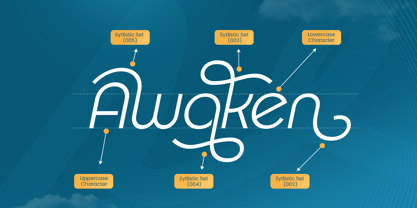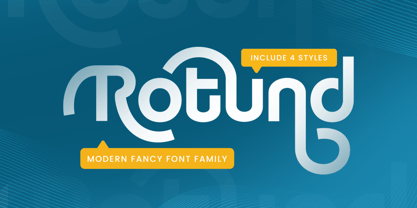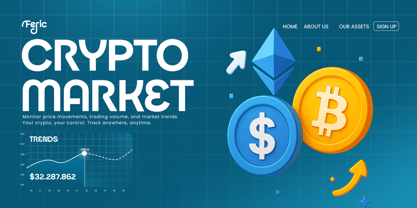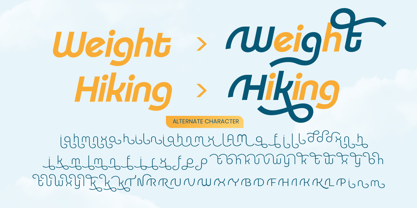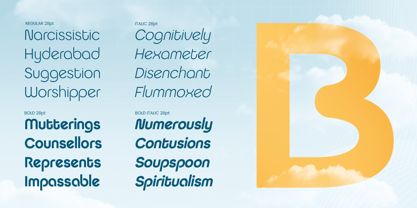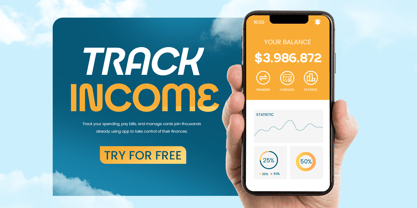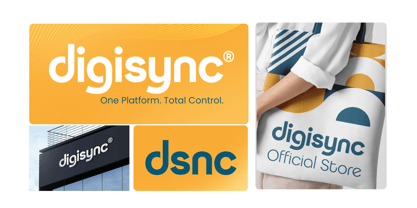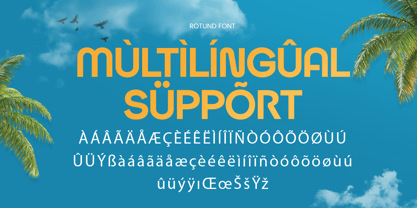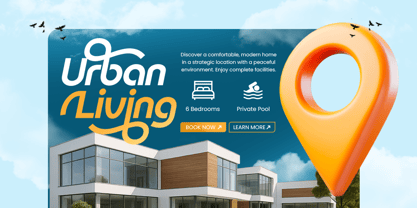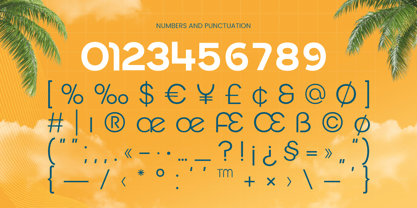
Rotund
by Sensatype Studio
The Rotund Font Family was designed by Zamroni Hamzah and published by Sensatype Studio. Rotund contains 4 styles and family package options. More about this family
Rotund is a modern fancy font family designed to bring personality, flair, and boldness to your design work. With its rounded curves and distinctive forms, Rotund is ideal for creative branding, fashion lookbooks, posters, packaging, and expressive logos. This font family offers a versatile range of styles to suit both elegant and playful themes. Whether you're crafting editorial layouts or building a unique identity, Rotund adapts beautifully across print and digital mediums. Its charm lies in its ability to be bold yet friendly, stylish yet readable. Stand out with confidence using Rotund — a font family that blends fun, elegance, and strong modern aesthetics. Rotund – Modern Fancy Font Family Features Rounded and stylish letterforms for unique impact Multiple weights/styles for versatile design use Perfect for branding, fashion, display, and editorial layouts Punctuation, numbers, and symbols included Uppercase and lowercase letters OpenType features for custom design flexibility Multilingual support for Afrikaans, Albanian, Asu, Basque, Bemba, Bena, Breton, Chiga, Cornish, Dutch, English, Estonian, Filipino, Finnish, Friulian, Galician, German, Gusii, Indonesian, Irish, Italian, Kabuverdianu, Kalenjin, Kinyarwanda, Luo, Luxembourgish, Luyia, Machame, Makhuwa-Meetto, Makonde, Malagasy, Manx, Morisyen, North Ndebele, Nyankole, Oromo, Portuguese, Quechua, Romansh, Rombo, Rundi, Rwa, Samburu, Sango, Sangu, Scottish Gaelic, Sena, Shambala, Shona, Soga, Somali, Spanish, Swahili, Swedish, Swiss, and more. Add charm and boldness to your work with Rotund — the modern fancy font that turns heads. Go bold. Stay stylish. Design with Rotund today! 🎯✨
Designers: Zamroni Hamzah
Foundry: Sensatype Studio